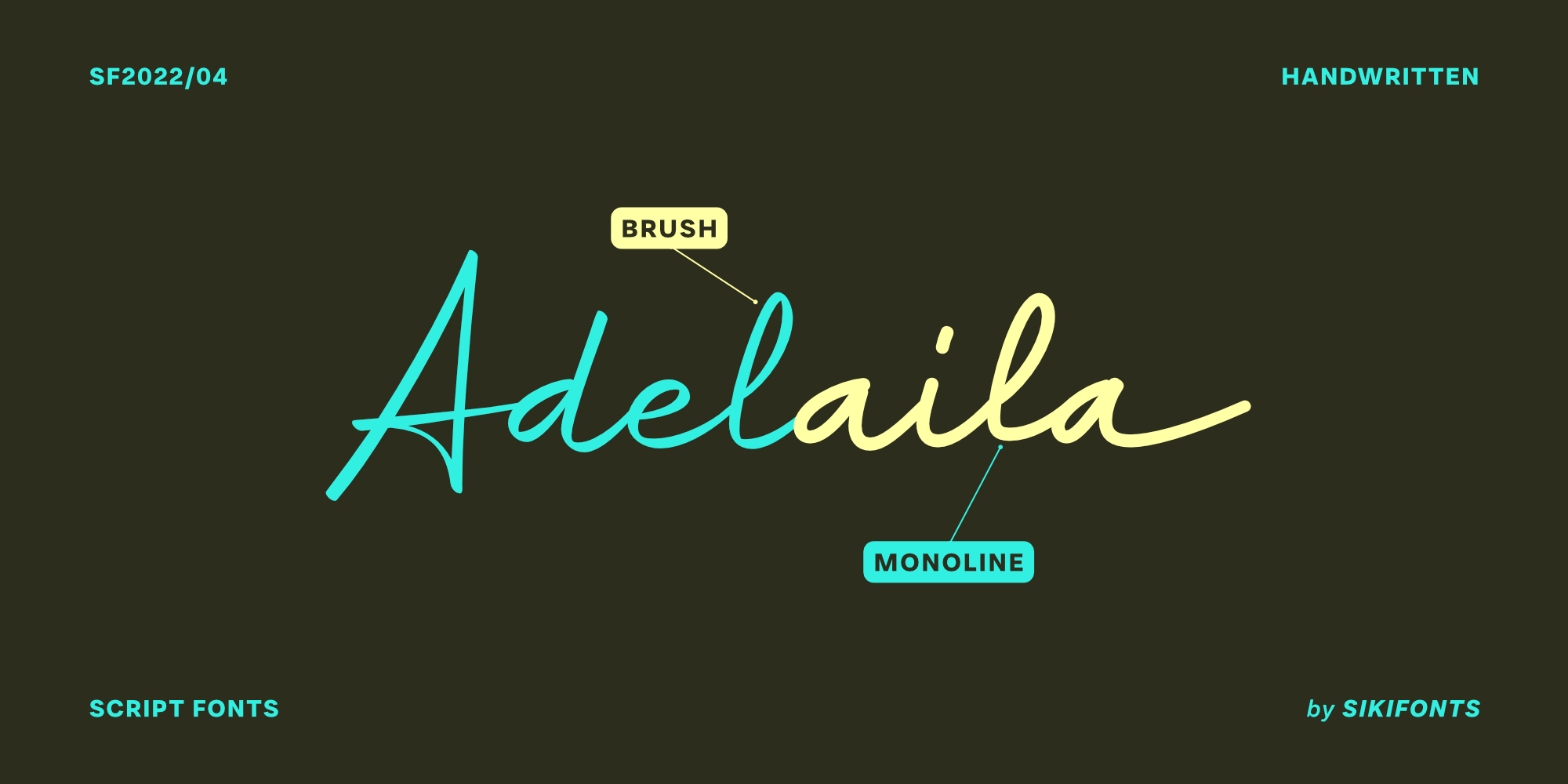
The Adelaila Font is an excellent choice for designs that aim for a warm, personal, and distinctly handcrafted aesthetic, with a charming handwritten script feel. Imagine it gracefully adorning wedding invitations, adding a heartfelt touch to personalized gifts, or bringing a cozy, inviting feel to a small business's branding, such as a boutique bakery or flower shop. It's also perfectly suited for lifestyle blog headers, elegant social media graphics, charming greeting cards, and any project where you want to convey a sense of intimacy, beauty, and a unique, artistic flair. Its flowing lines, gentle curves, and approachable appearance make it ideal for conveying sincerity and a delightful charm.
What makes the Adelaila Font so exciting is its ability to instantly infuse a design with a feeling of authentic human touch and creative expression. It often features subtle imperfections and a natural flow that mimics genuine handwriting, making it feel organic and incredibly inviting. This font comes in both brush and monoline styles, offering versatility to match your specific design needs. It's designed to capture attention with its unassuming beauty, ensuring your message is not just seen, but felt with a sense of delightful authenticity.
The Adelaila Font family typically includes at least two styles: Adelaila Brush and Adelaila Monoline. It often features OpenType features such as standard ligatures, stylistic sets (like stylistic set 01 for ending characters), and discretionary ligatures to access swash glyphs. These variations empower designers to create a truly inviting and memorable display, ensuring the Adelaila Font Free Download can adapt to a wide array of projects while maintaining its signature, lovely charm.